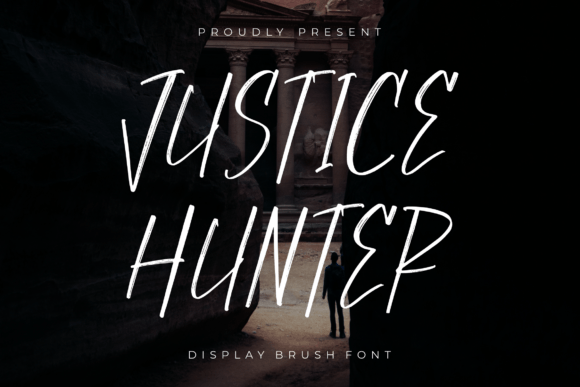
Journey into the realm of captivating calligraphy with Justice Hunter, a brush script font masterpiece from Perspectype Studio. Crafted with the utmost care and attention to detail, Justice Hunter exudes an air of elegance, creativity, and boundless charm.
This exquisite font family beckons you to embark on a voyage of artistic exploration, where your imagination takes center stage. Unleash your inner artist and let Justice Hunter guide you in creating stunning logos, branding designs, homeware masterpieces, and product packaging that leave an unforgettable impression.
Picture your words dancing across mugs, posters, and shopping bags, each letter a brushstroke of pure artistry. Transform your quotes into captivating works of art, and design book covers and name cards that radiate sophistication and allure.
With Justice Hunter as your creative companion, your invitations and greeting cards become cherished keepsakes, imbued with a touch of timeless beauty. Labels, photography, and watermarks take on a new dimension of artistry, while special events are elevated to extraordinary occasions.
Justice Hunter is more than just a font; it's an artistic gateway to a world of boundless creativity. Its versatility knows no bounds, seamlessly adapting to your every project, adding a touch of magic to each endeavor.
Indulge in the beauty of Justice Hunter and watch your creative vision come to life. Embrace the power of this remarkable font and embark on a journey of artistic self-expression that will leave you breathless.